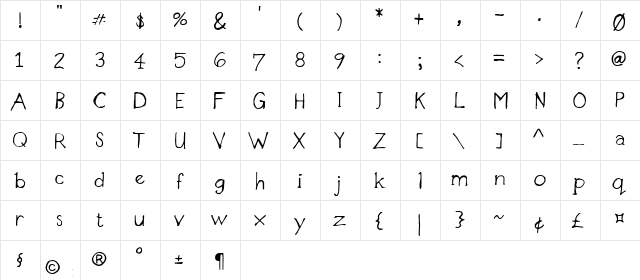
Designer Notes Regular
| Foundry | Roger Ridpath |
| Designer | Roger Ridpath |
Design Context for Designer Notes Typeface
Designer Notes is a composed and adaptable typeface that performs quietly and consistently across a wide range of design contexts.